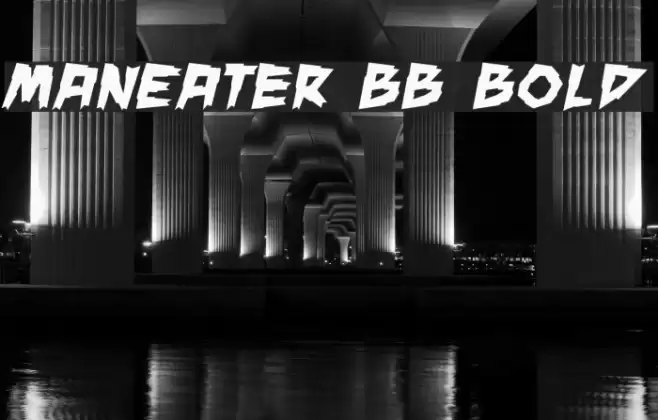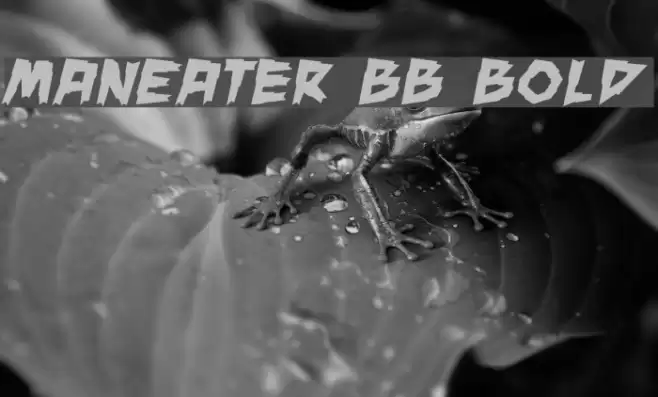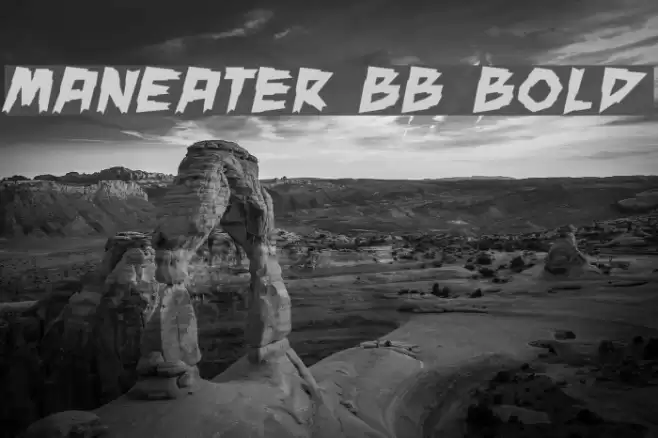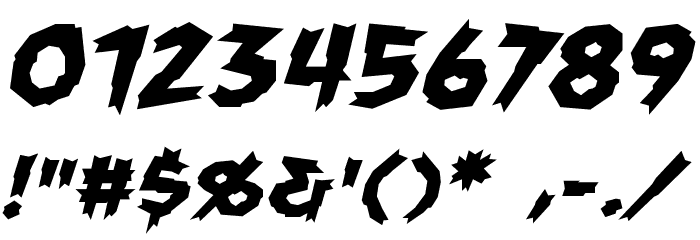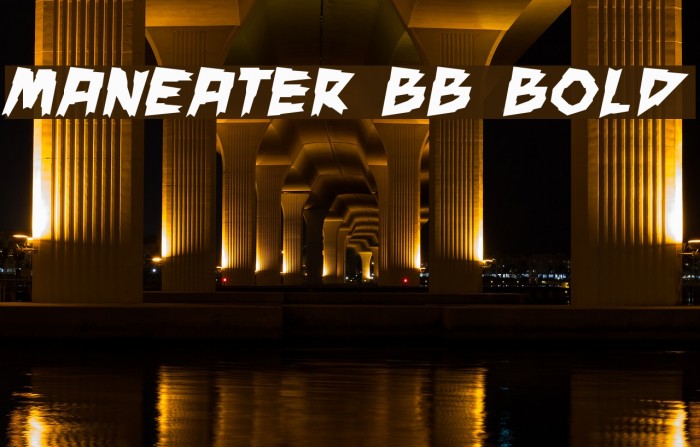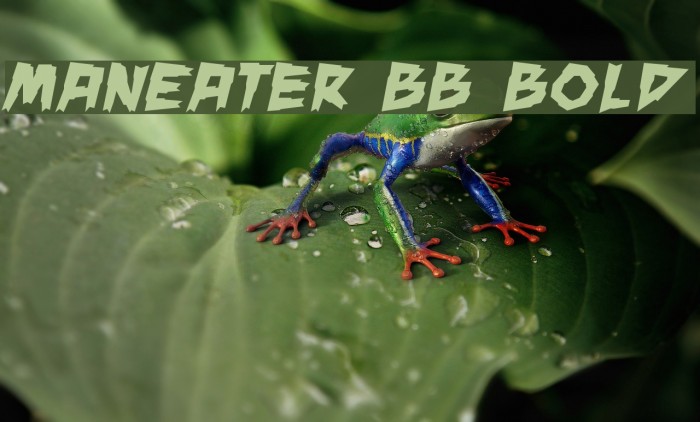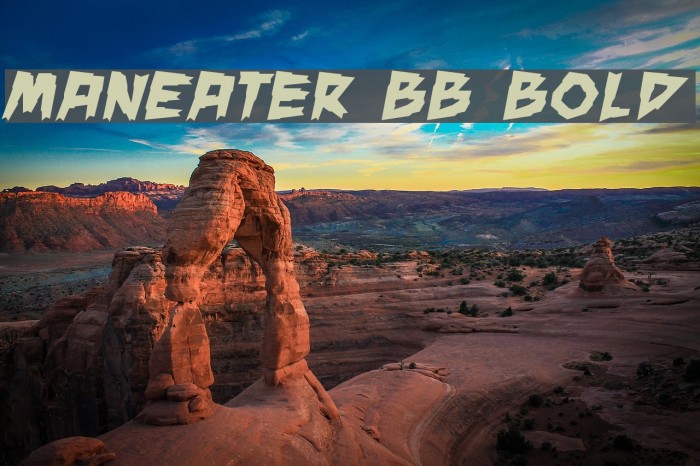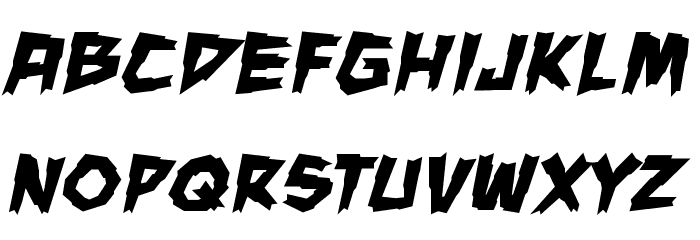
ManEater BB Bold Font
ManEater BB Bold Description
This font features a bold, jagged style with sharp, angular edges that give it a dynamic and aggressive appearance. The characters are heavily stylized, with irregular shapes that create a sense of movement and energy. The uppercase and lowercase letters maintain a consistent design, while the numbers and special characters complement the overall aesthetic. This font is highly decorative and stands out with its unique, edgy look.
A bold, jagged, and dynamic font with sharp, angular edges from Uncategorized fonts.
- Proposed Projects: Ideal for projects that require a bold statement, such as posters, album covers, video game titles, or any design that needs a strong, impactful presence.
- Overall Style: Modern, Edgy